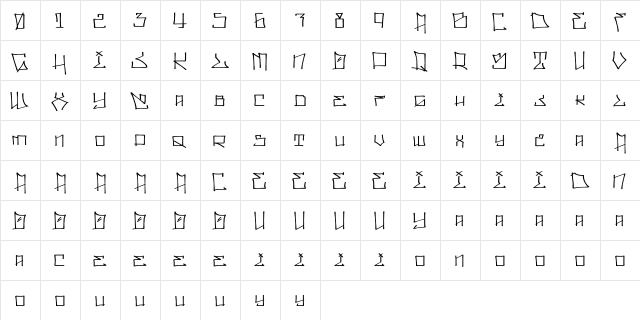
Wll Writr Scrpt Regular
| Designer | Out Of Step Font Company |
Design Context for Wll Writr Scrpt Typeface
Wll Writr Scrpt is a composed and adaptable typeface that performs quietly and consistently across a wide range of design contexts.